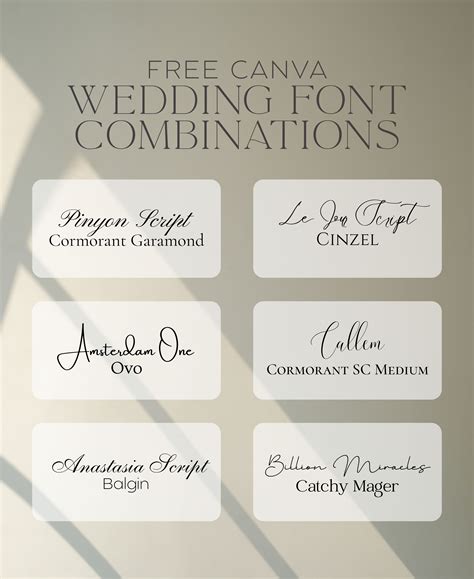
When I designed my sister's wedding invitations last spring, I spent hours trying to find typography that didn't look like it belonged on a corporate flyer. Most default word processors offer sterile serif options that completely lack the romantic feel needed for a ceremony. That's exactly why I started compiling a 20+ Google Wedding Fonts Pack Ttf collection to use across different design platforms. Having local TrueType files meant I wasn't tied to an internet connection, and I could guarantee the glyphs rendered perfectly every time I hit print.
You don't need to blindly download every typeface available. Instead, focus on a mix of elegant scripts, clean sans-serifs for readability, and classic serifs for names. In my experience, a well-rounded bundle needs contrast. You want a highly decorative script for the couple's names, paired with a highly legible, understated font for the venue details.
Font CategoryBest Used ForExample Vibe
Calligraphy ScriptsFirst Names, HeadersRomantic, Flowing
Modern Sans-SerifDirections, Menu DetailsMinimalist, Clean
Classic SerifDate, Time, Body TextTraditional, Timeless
Finding the right typography transforms a standard invitation into a keepsake. By maintaining your own curated archive of TrueType files, you ensure consistent rendering and creative freedom regardless of internet connectivity. Take the time to pair a sweeping script with a grounded serif, test your prints at actual size, and let the typography speak for itself.